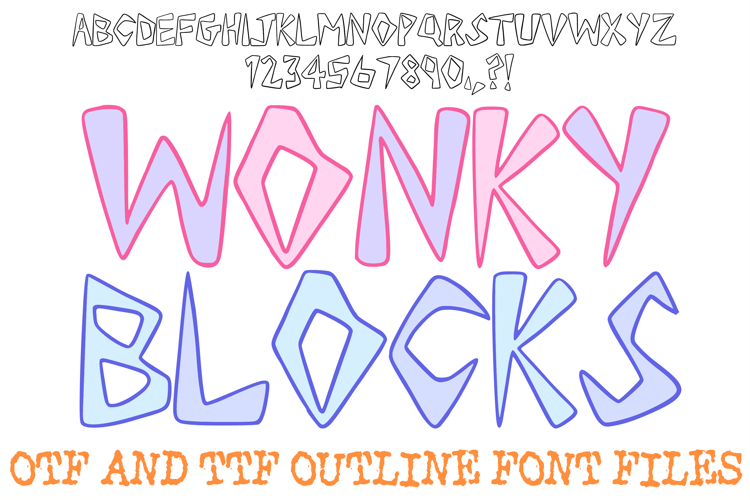
Wonky Blocks Alphabet Lettering Font Graffiti ABC OTF TTF
Bring a delightfully quirky, retro energy to your creative layouts with the Wonky Blocks Font. This highly unique display typeface features bold, chunky outlines defined by asymmetrical geometry, playful angles, and uneven inner cutouts. Balancing raw, abstract shapes with slightly softened edges, this hand-drawn alphabet captures a fun "wonky block" aesthetic that is reminiscent of mid-century modern design, retro puzzle pieces, or carved cartoon stonework. Its offbeat personality makes it an exceptional choice for any project needing an eye-catching, lighthearted headline.
Delivered as an installable typeface, this clean outline structure provides maximum versatility for layering. It serves as an excellent resource for a designer who wants to add bright, solid color fills behind the linework, apply offset drop shadows, or play with textured background layers. The thick, geometric line art scales flawlessly across all creative software, ensuring crisp results for both bold digital graphics and physical print media.